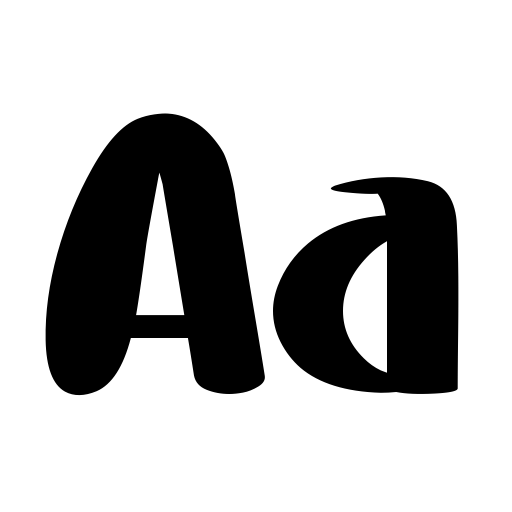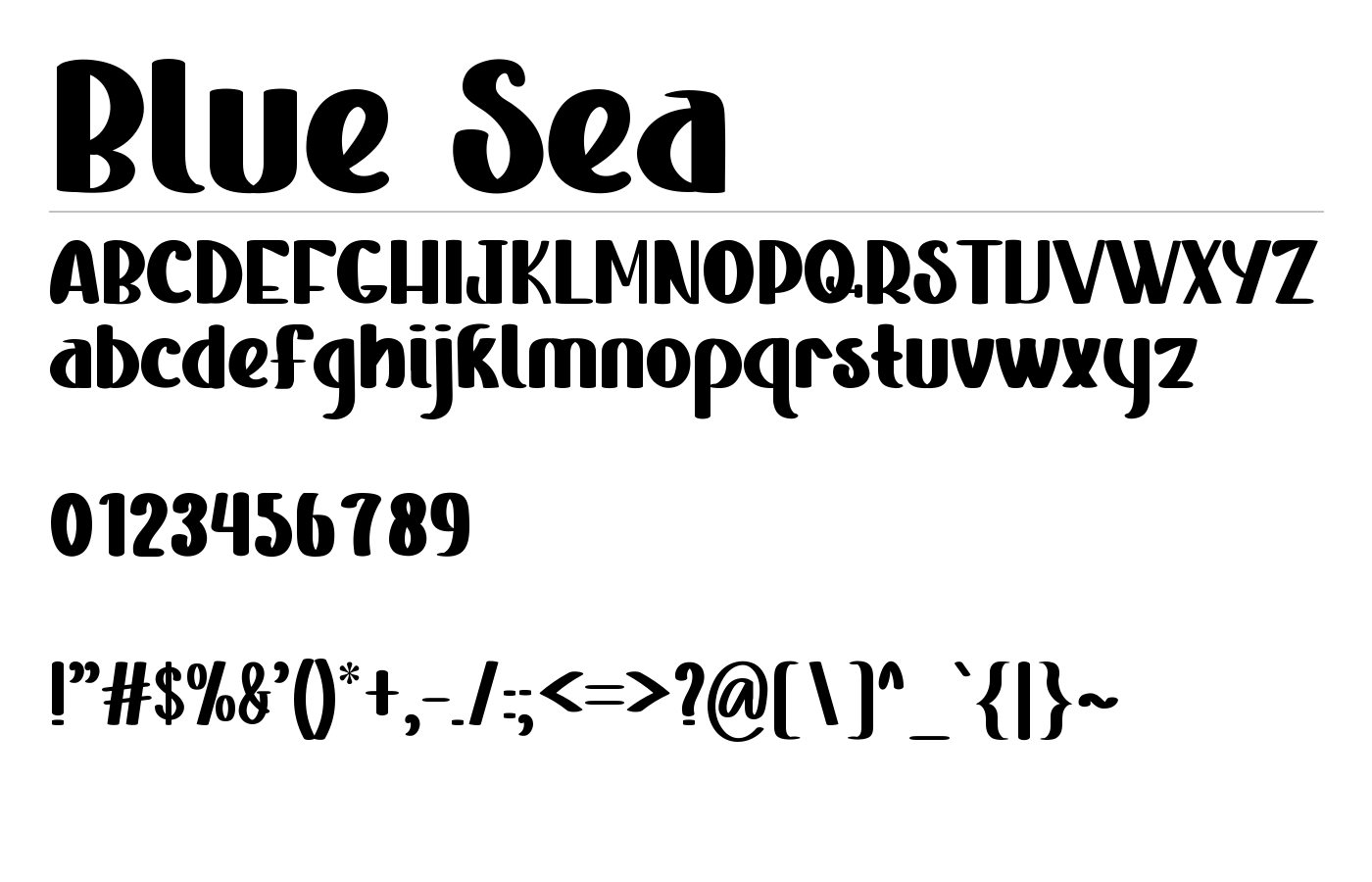
Blue Sea is a bold, playful sans serif font with a unique, slightly condensed style and a high x-height that ensures strong readability. Its smooth, rounded strokes combined with quirky letterforms create a friendly and approachable personality, making it ideal for creative logos, headlines, and branding projects that want to stand out with a fun yet modern vibe. This font works well where a distinctive, eye-catching look is needed without sacrificing clarity.
Blue Sea Font